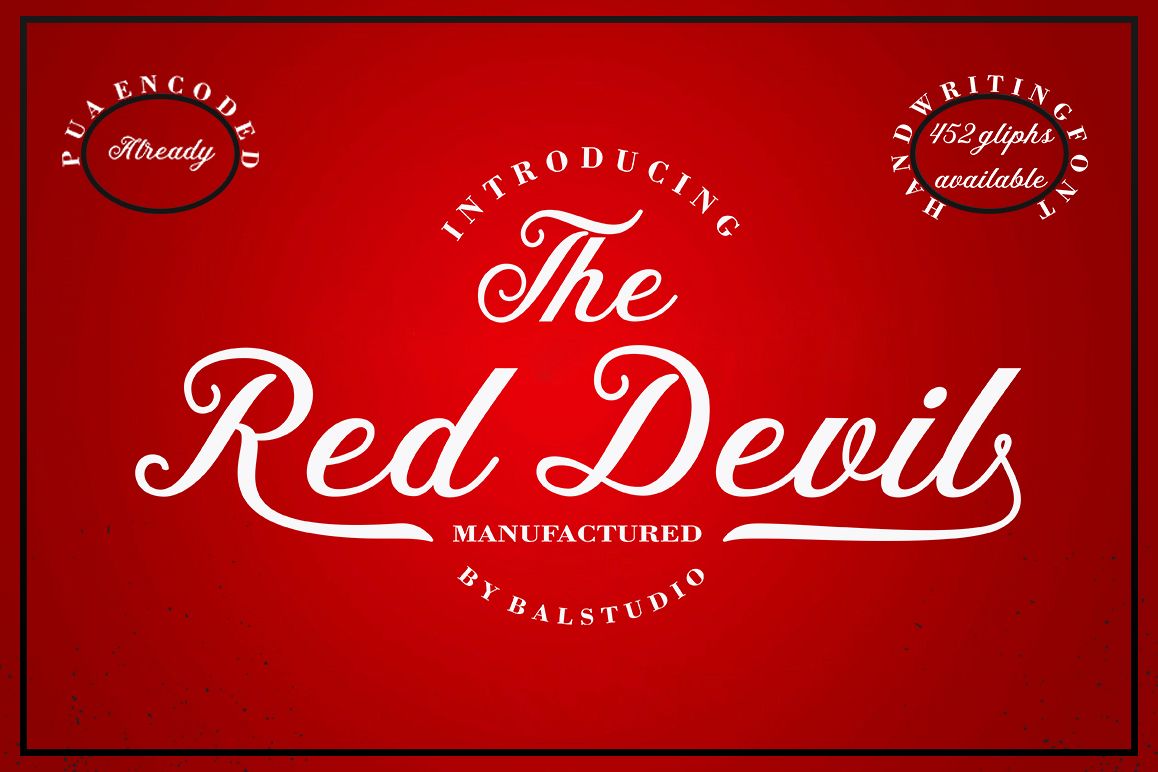
The Red Devil
The Red Devil is a handmade script font with clear style and creative projects such as logos, printed quotes, invitations, cards, product packaging, headers, logos, letterhead, posters, clothing designs, labels,as you can use the illustrative qualities of the shapes to create an art piece.
The Red Devil Script come with uppercase letters, lowercase letters, numbers, punctuation, and so many variations on each character including alternative opentype, general binder. It's fun to use because each word can be transformed to you like.